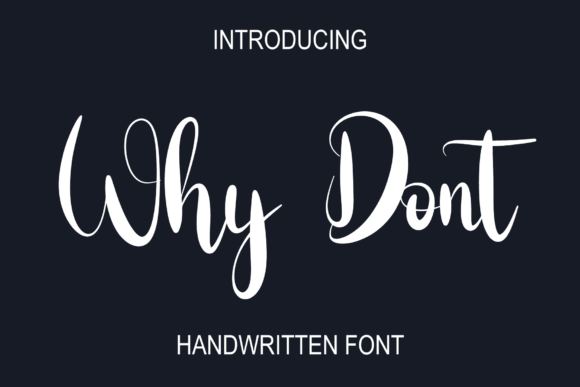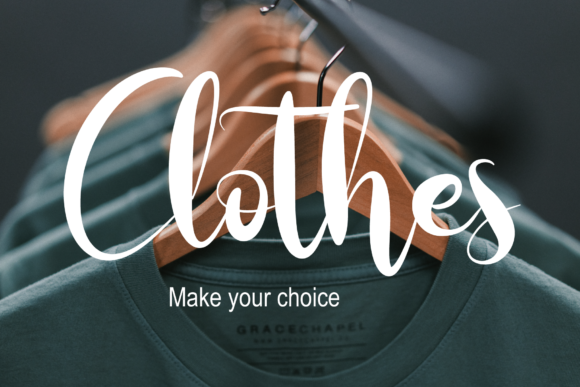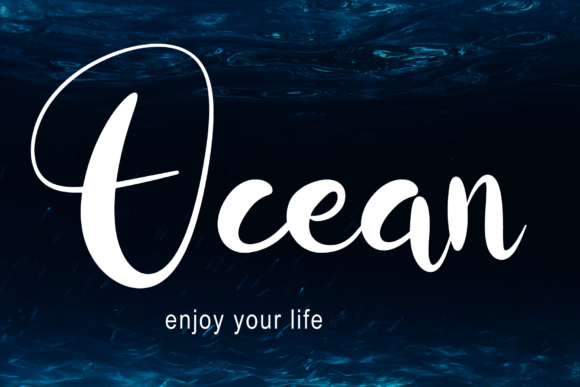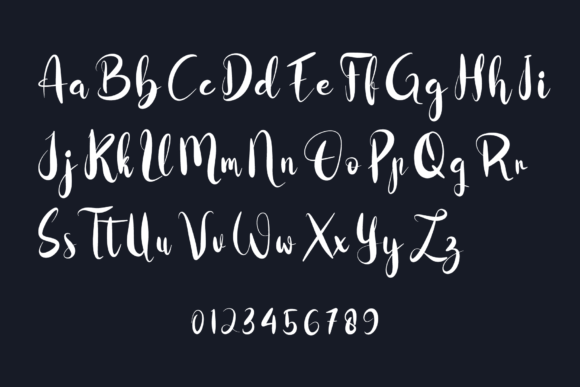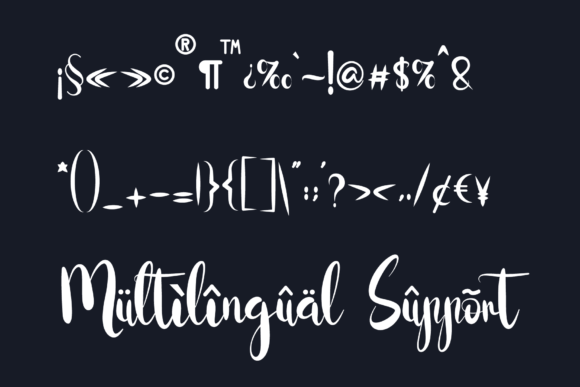
Why Dont Font: An Elegant Script for Sophisticated Designs
The Why Dont font is a refined script typeface with a brushed texture, offering an elegant appearance. Its distinctive style suits various design projects, especially those needing a personal touch.
Versatility in Design Applications
For wedding invitations, Why Dont adds romance and charm. Its brushed texture creates a natural feel, evoking warmth and intimacy. The elegant letterforms enhance invitation designs, setting a special tone for events.
In thank you cards, this font conveys sincere gratitude. Its handwritten look adds authenticity to appreciation messages, making them feel heartfelt for both personal and business use.
Why Dont in Creative and Business Contexts
Quotes and greeting cards benefit from Why Dont’s artistic flair. It enhances the visual appeal of inspirational quotes and creates a warm atmosphere in greeting cards.
Logos and business cards designed with Why Dont exude professionalism and creativity. The brushed texture adds a unique element to branding, helping businesses stand out.
Enhancing Business Materials with Why Dont
This font adds sophistication to various business materials like letterheads and presentations. Its elegant appearance creates a distinct visual identity, impressing clients and partners.
Creating Lasting Impressions
Why Dont’s versatility makes it suitable for adding a personalized touch to various projects. From wedding invitations to business materials, it consistently delivers elegance and sophistication.
Conclusion: A Font for Refined Expression
Why Dont is a versatile script font that enhances design projects with its elegance. Its brushed texture and refined letterforms make it perfect for adding a handwritten feel to invitations, cards, logos, and business materials. This font’s ability to convey sophistication makes it a valuable asset in creating memorable and impactful designs.